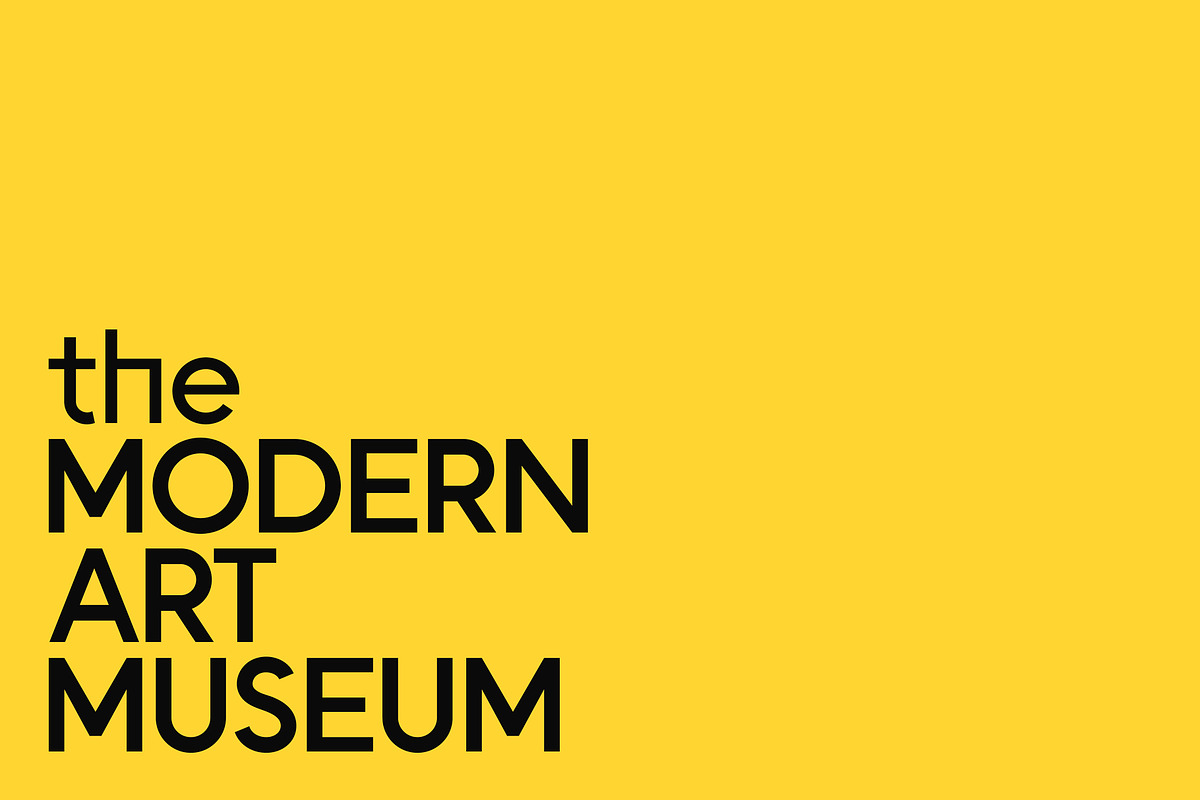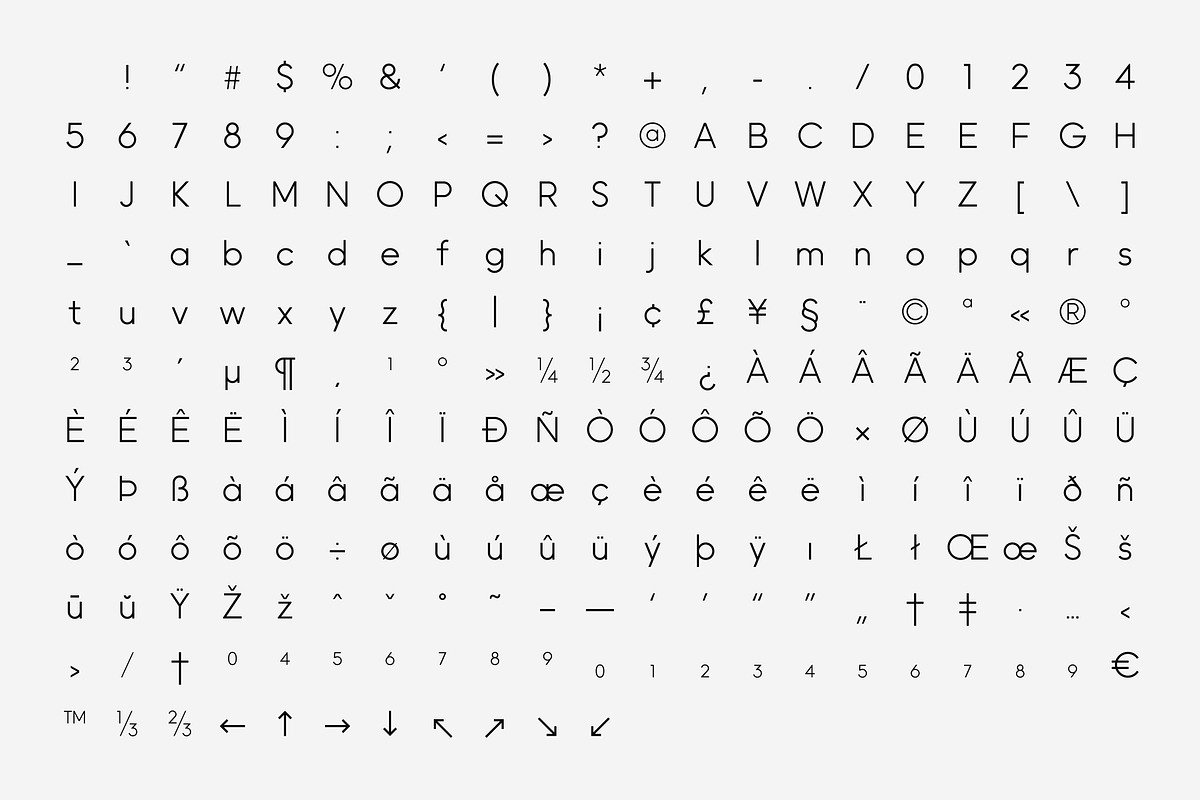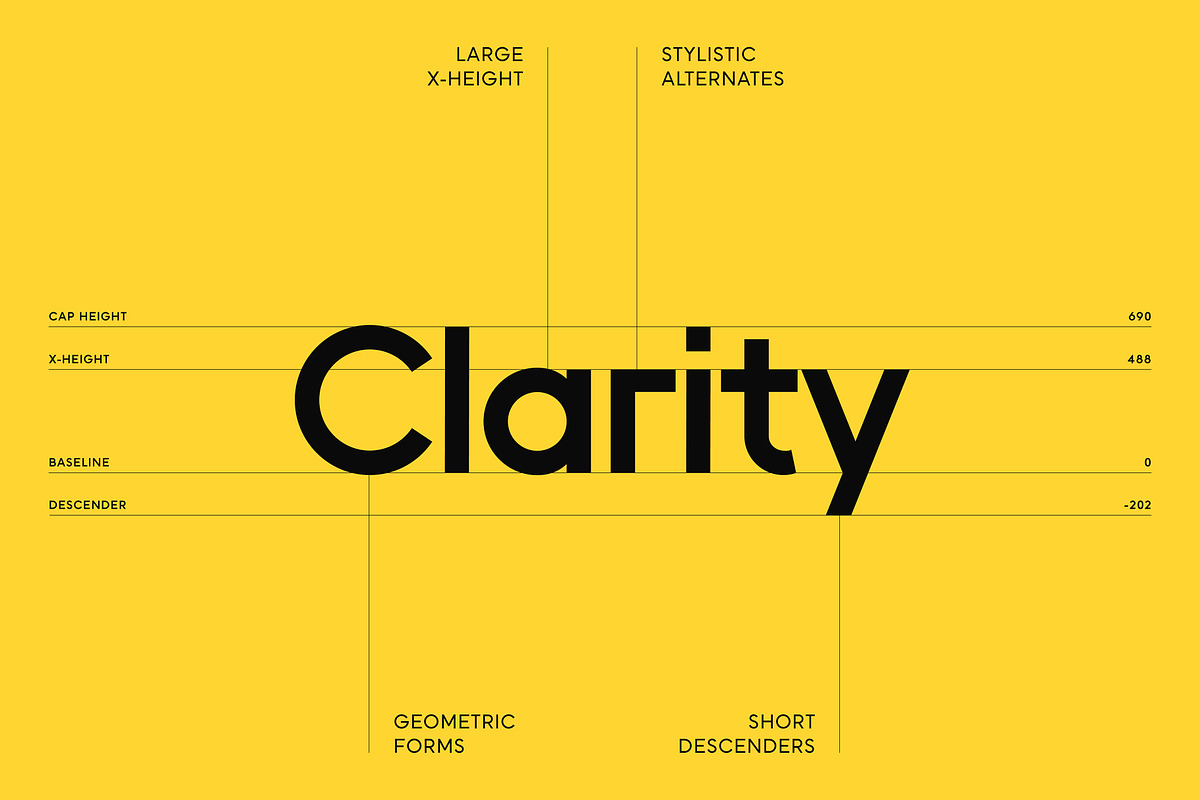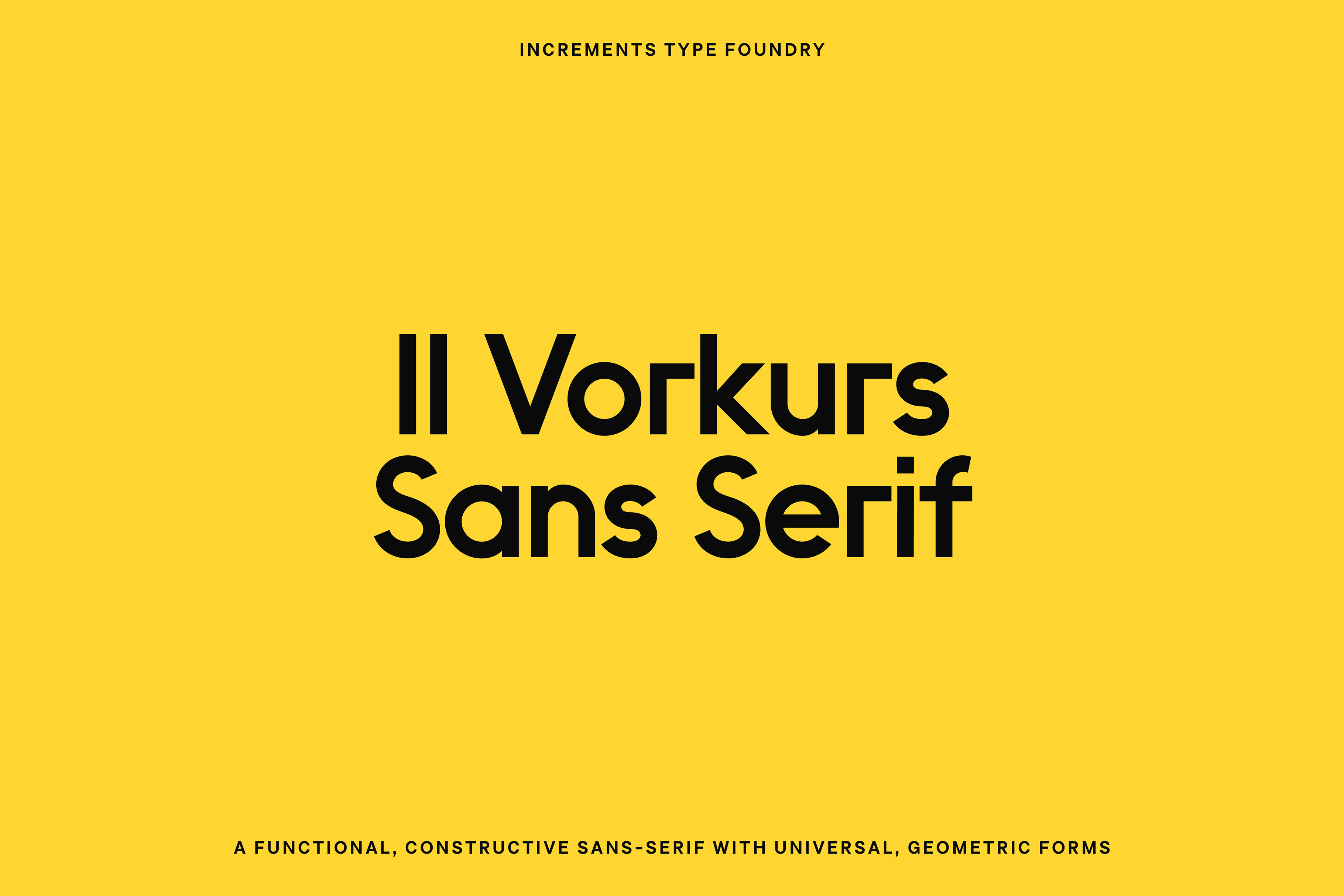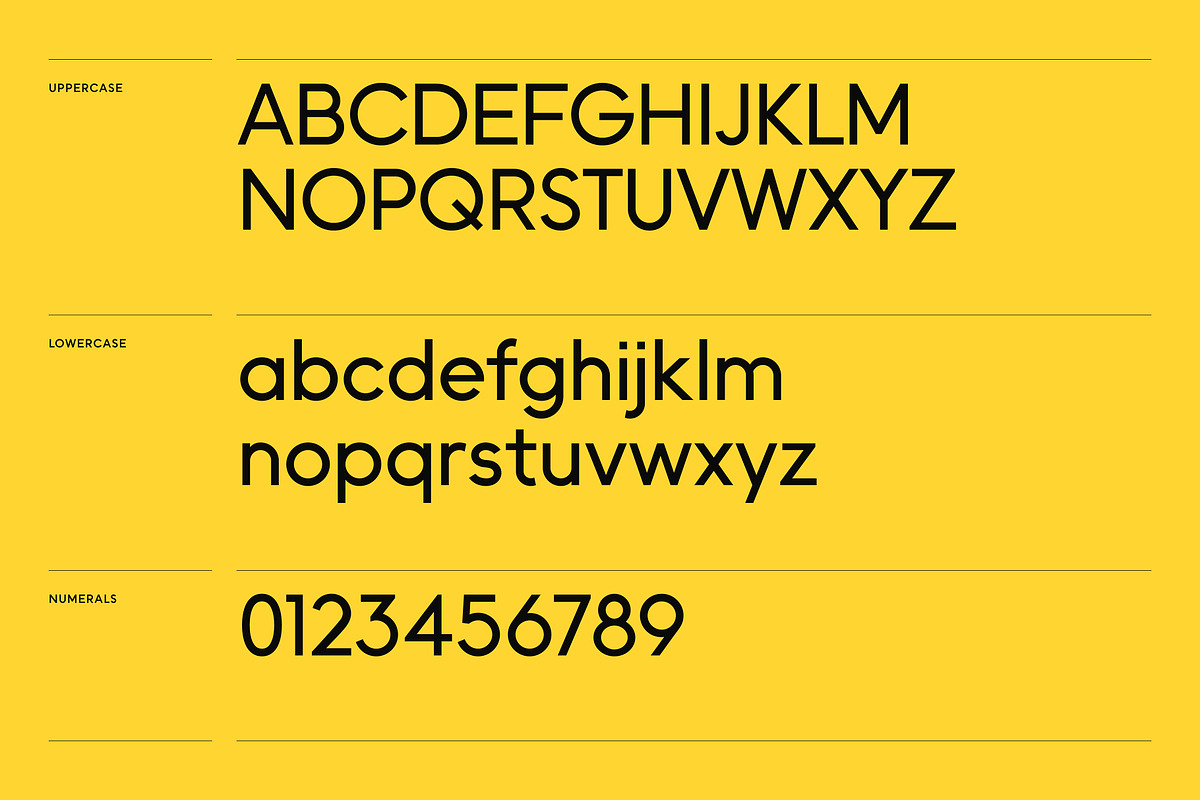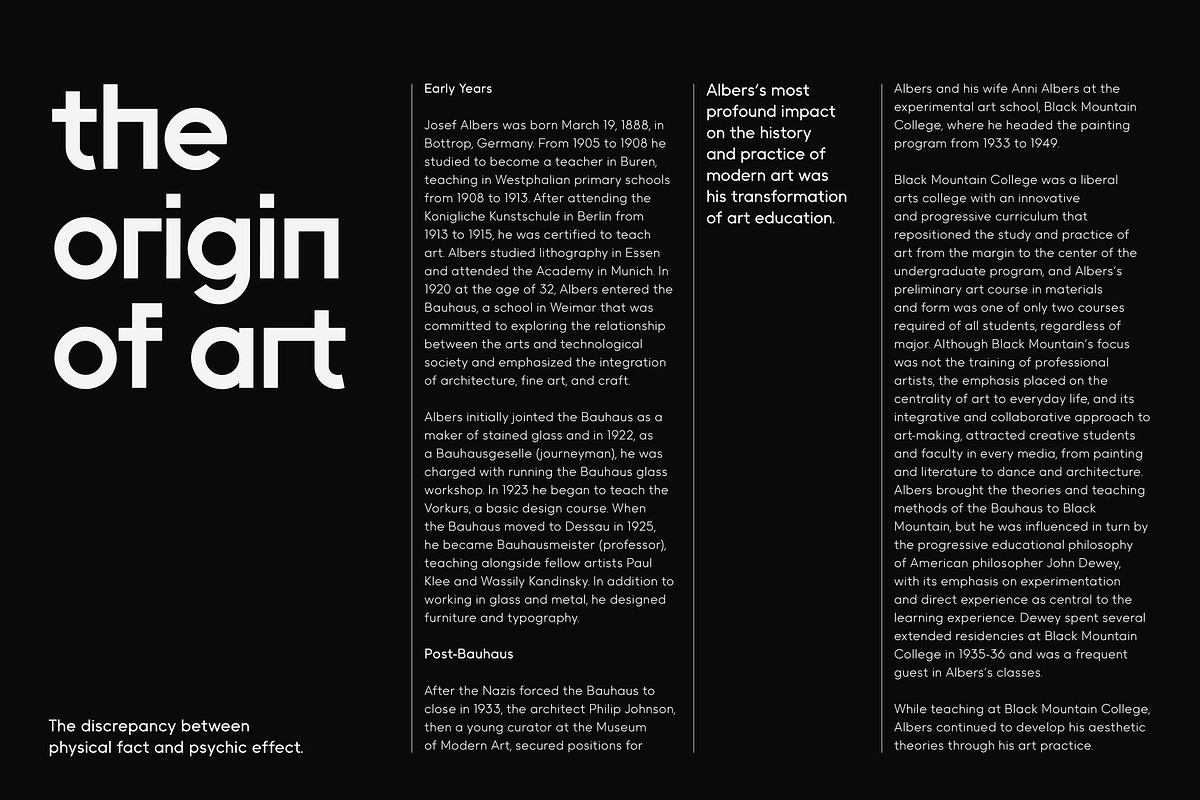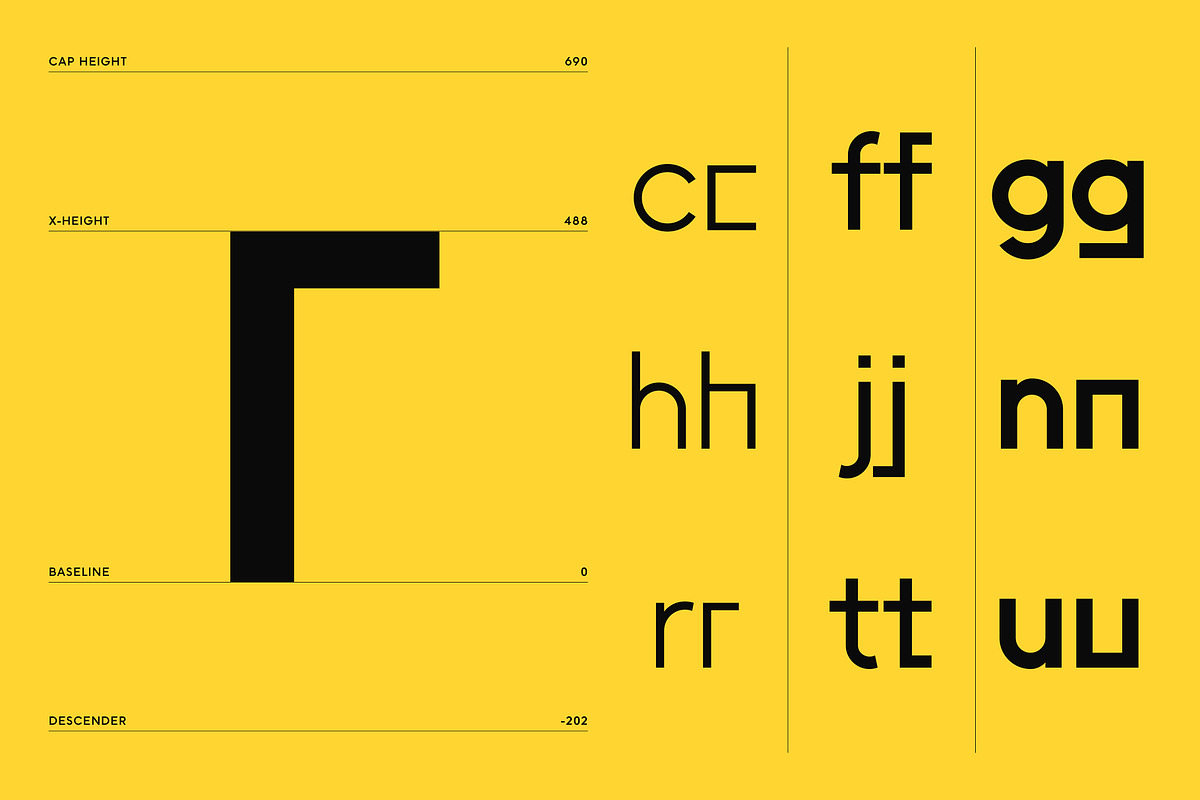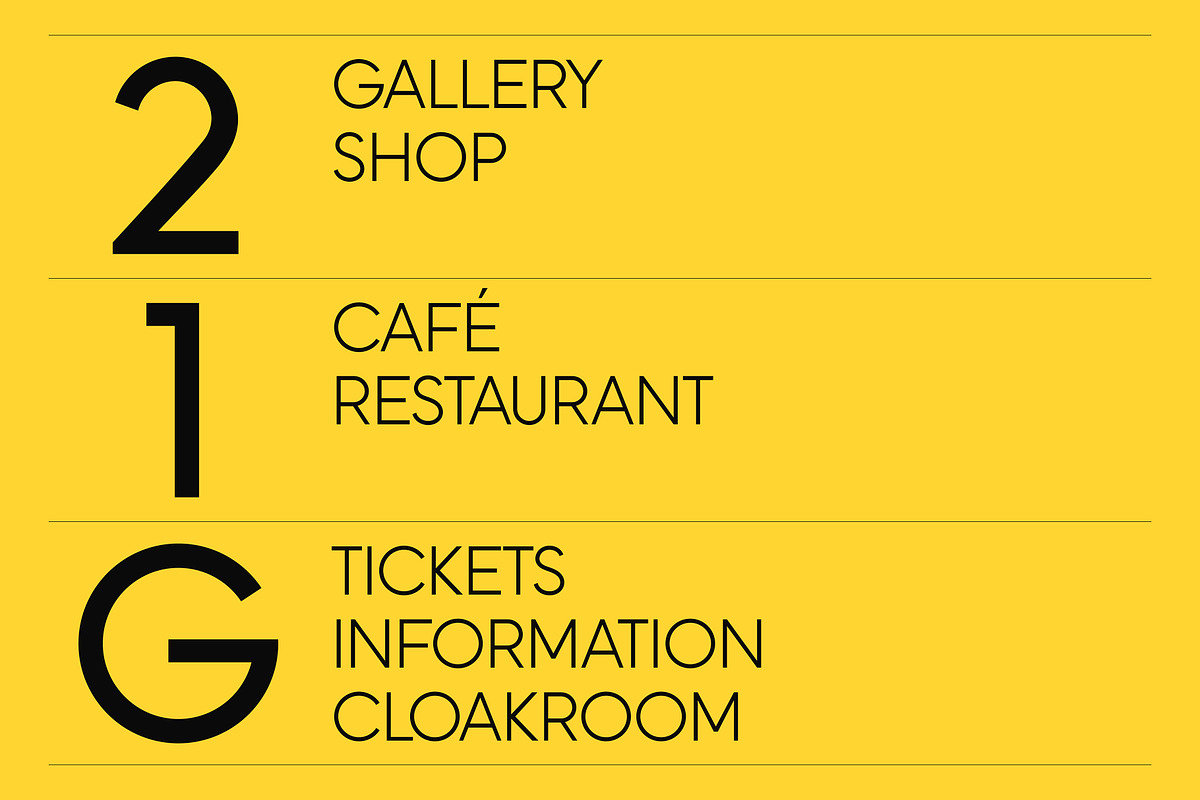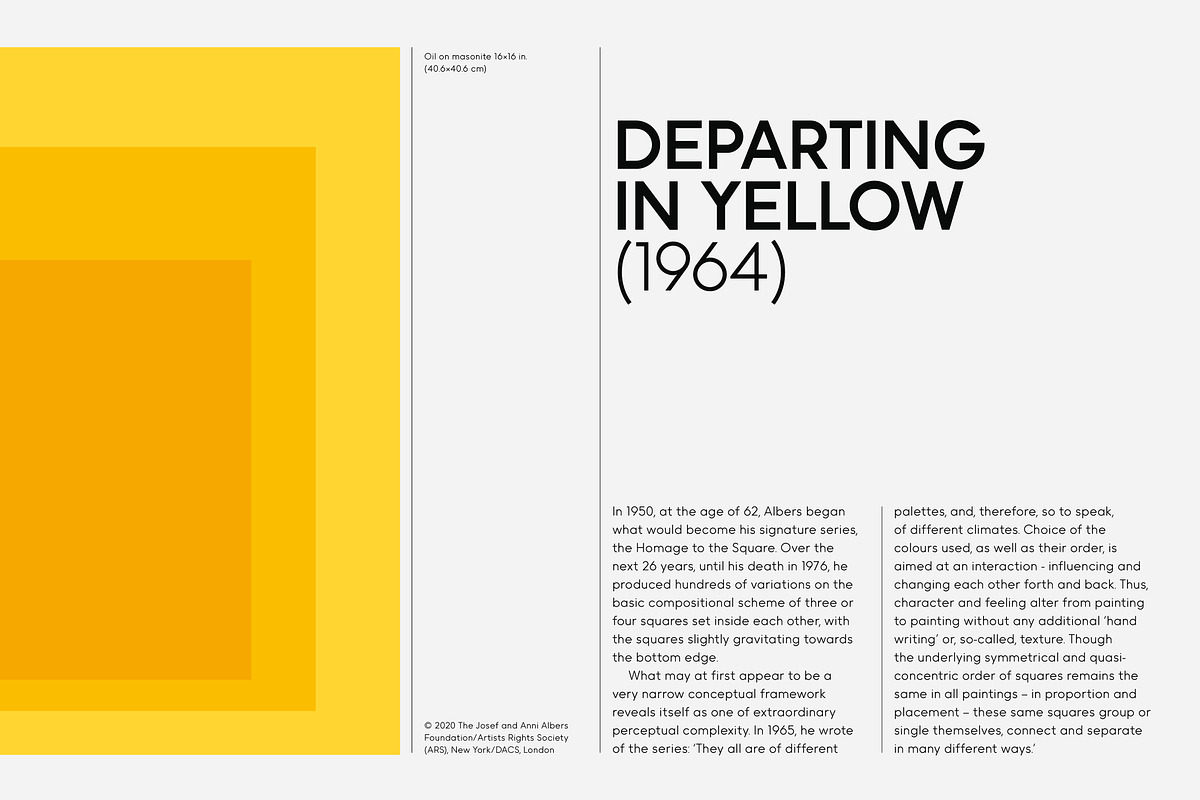
II Vorkurs: Sans Serif Font Family
A functional, constructive sans-serif with universal, geometric forms. Dedicated to the life and work of Bauhaus pioneer Josef Albers, the typeface follows a disciplined approach to composition using a limited palette of modular blocks. II Vorkurs has 3 weights and 6 styles with extensive latin language support and squared, stylistic alternates.